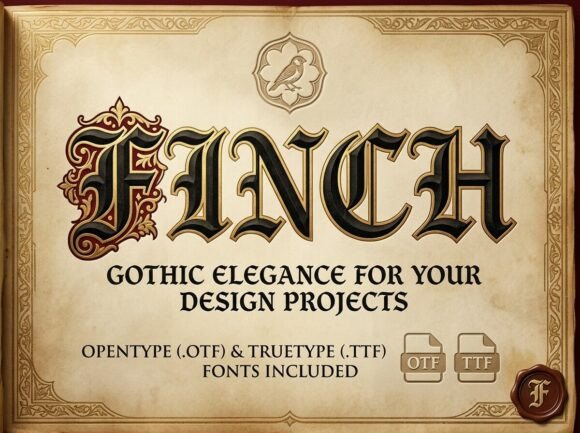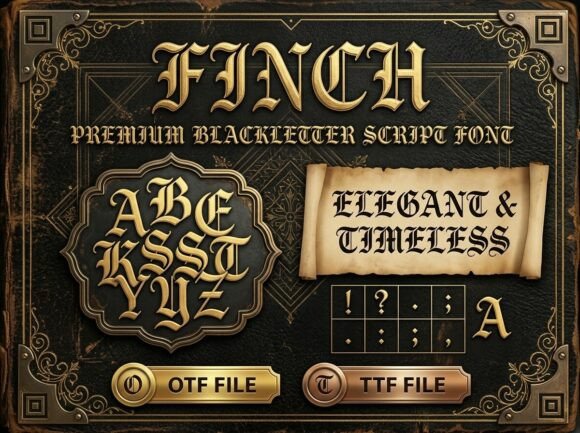
Unleash the Power of Finch Font: A Masterful Reimagining of Blackletter Calligraphy
In the realm of typography, few fonts command attention like Finch, a premium Gothic font that strikes a perfect balance between medieval heritage and modern sharp-edged precision. This masterful reimagining of traditional Blackletter calligraphy is designed for creators who need a bold, historical presence in their designs. Whether you’re a graphic designer, a craft brewer, or a filmmaker, Finch is the ideal choice for projects that require a powerful, “old-world” aesthetic.
The Characteristics of Finch Font
Finch exudes an aura of dark elegance and undisputed authority, thanks to its dramatic vertical strokes, intricate diamond-shaped terminals, and aggressive flair. These distinctive features evoke the grandeur of medieval manuscripts, while also showcasing a modern sharpness that cuts through visual clutter. The result is a font that feels both timeless and contemporary, capable of commanding attention in any design.
Design Inspirations: Where to Use Finch Font
Finch is a versatile font that can be used in a variety of creative projects. Some of the most inspiring applications include:
• Heavy Metal Album Art: Finch’s bold, Gothic aesthetic is perfectly suited for heavy metal album covers, where a strong visual statement is essential.
• Tattoo Studio Branding: The font’s edgy, intricate details make it a natural fit for tattoo studio branding, where a bold and eye-catching identity is crucial.
• Streetwear Apparel: Finch’s modern sharpness and medieval flair make it an excellent choice for streetwear apparel, where fashion meets function.
• Vintage-Inspired Label Design: The font’s nostalgic feel and precise lines make it ideal for vintage-inspired label design, where a classic look is desired.
Crafting a Logo or Title with Finch Font
Whether you’re crafting a logo for a craft brewery or a cinematic title for a fantasy epic, Finch delivers a powerful, “old-world” aesthetic that remains crisp and legible in contemporary layouts. The font’s intricate details and dramatic strokes ensure that your design stands out, while its precision and sharpness guarantee that it remains legible even at smaller sizes.
The Benefits of Using Finch Font
So why choose Finch font for your next design project? Here are just a few benefits:
• Unique Aesthetic: Finch offers a distinctive, one-of-a-kind aesthetic that’s sure to set your design apart.
• Versatility: The font’s versatility means it can be used in a wide range of creative projects, from album art to apparel.
• Legibility: Despite its intricate details, Finch remains surprisingly legible, even at smaller sizes.
• Timeless Appeal: The font’s medieval heritage and modern sharpness ensure that it will remain a compelling choice for years to come.
Finch font is a masterful reimagining of traditional Blackletter calligraphy, offering a powerful and versatile aesthetic that’s perfect for creators who need a bold, historical presence in their designs. With its dramatic vertical strokes, intricate diamond-shaped terminals, and aggressive flair, Finch exudes an aura of dark elegance and undisputed authority. Whether you’re a graphic designer, a craft brewer, or a filmmaker, Finch is the ideal choice for projects that require a strong visual statement. So why settle for a generic font when you can command attention with Finch?